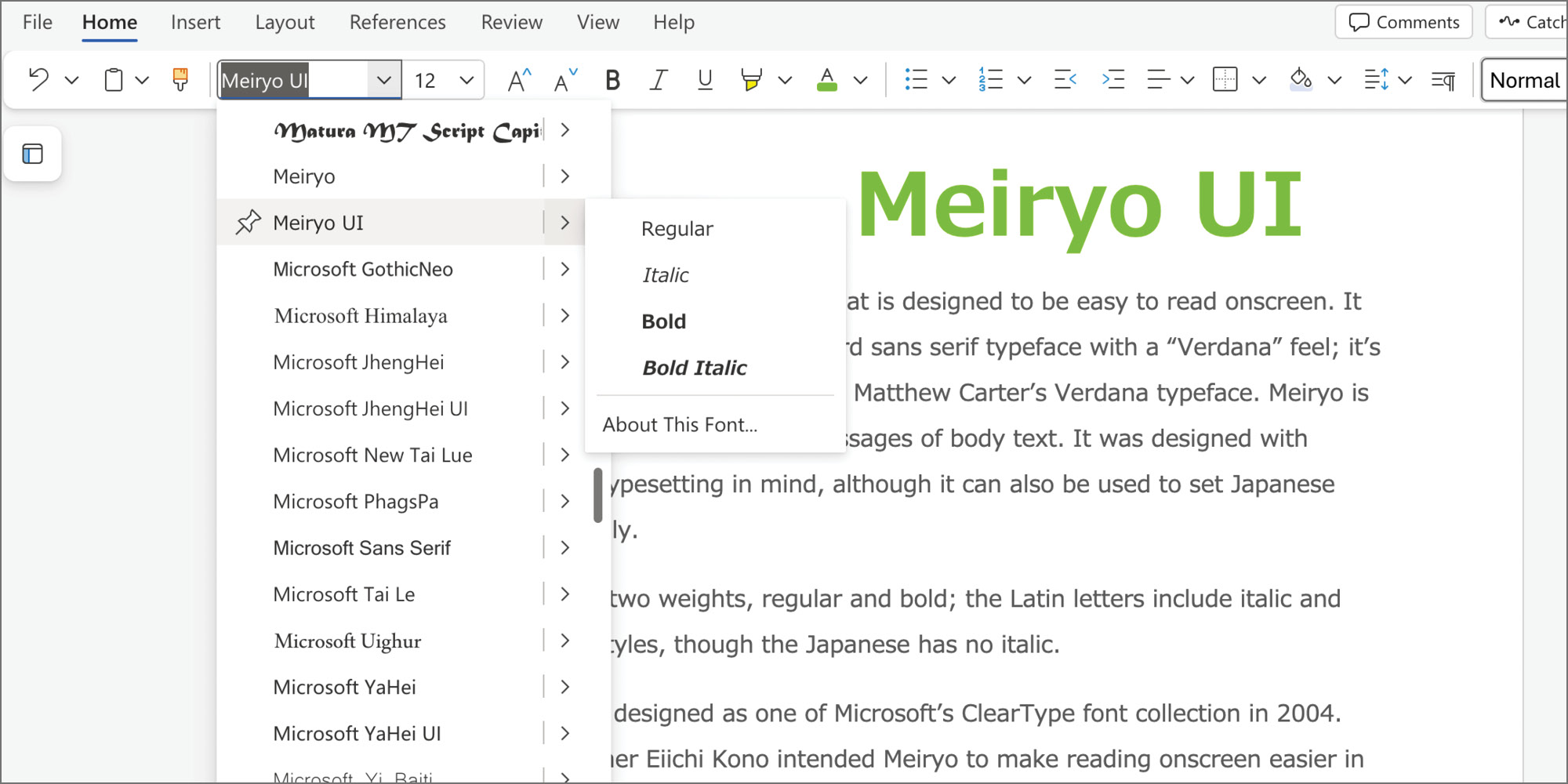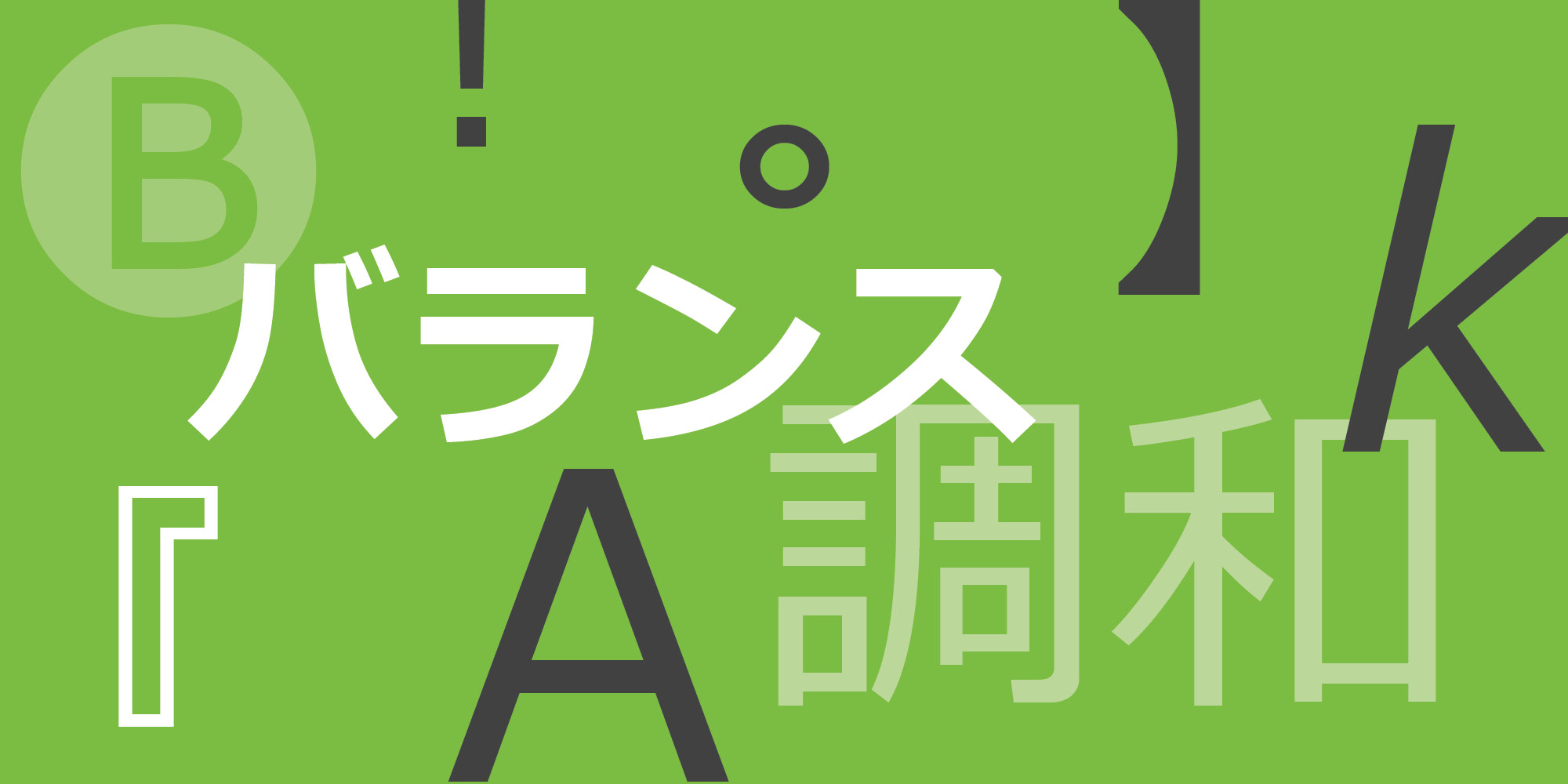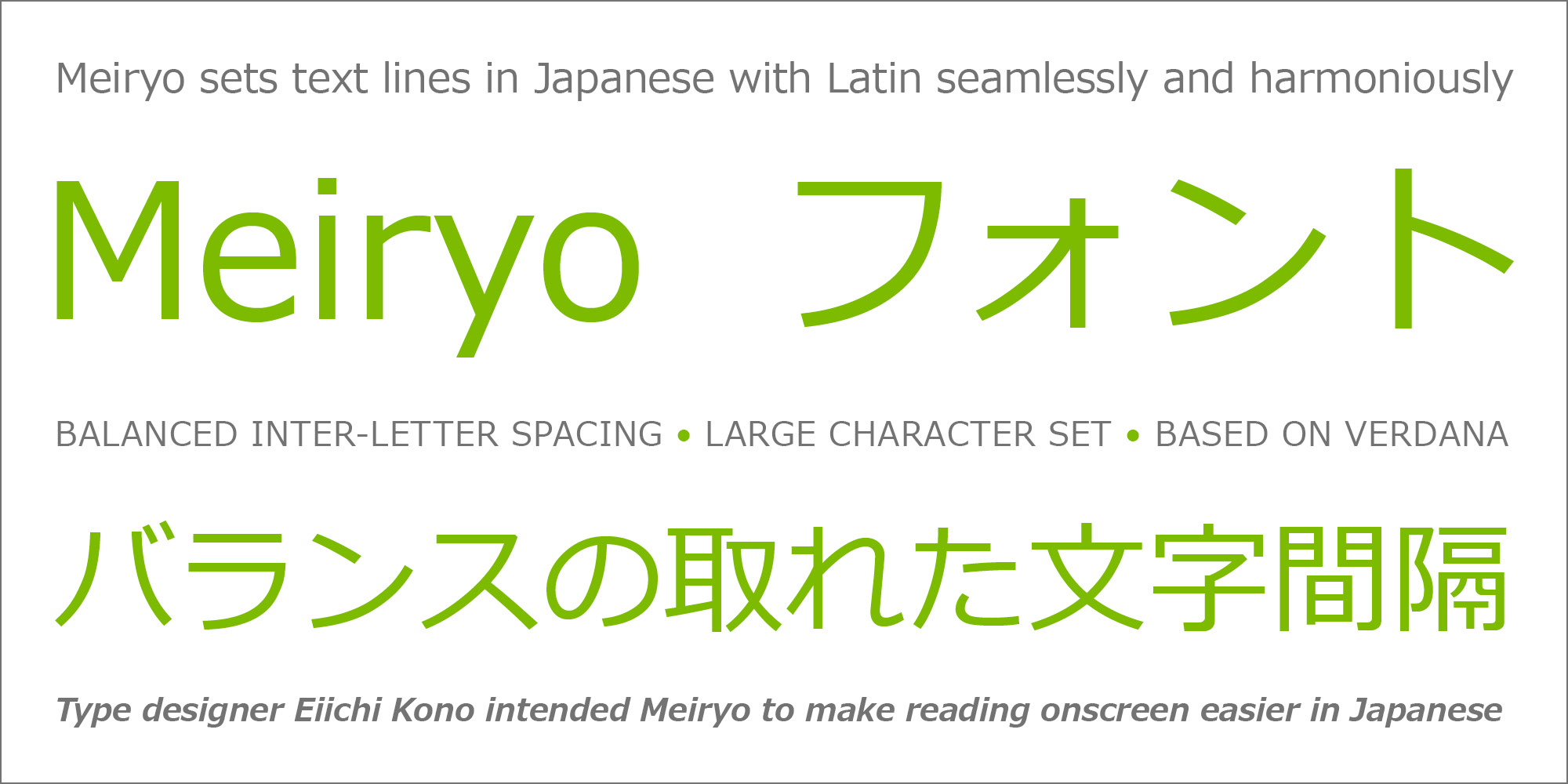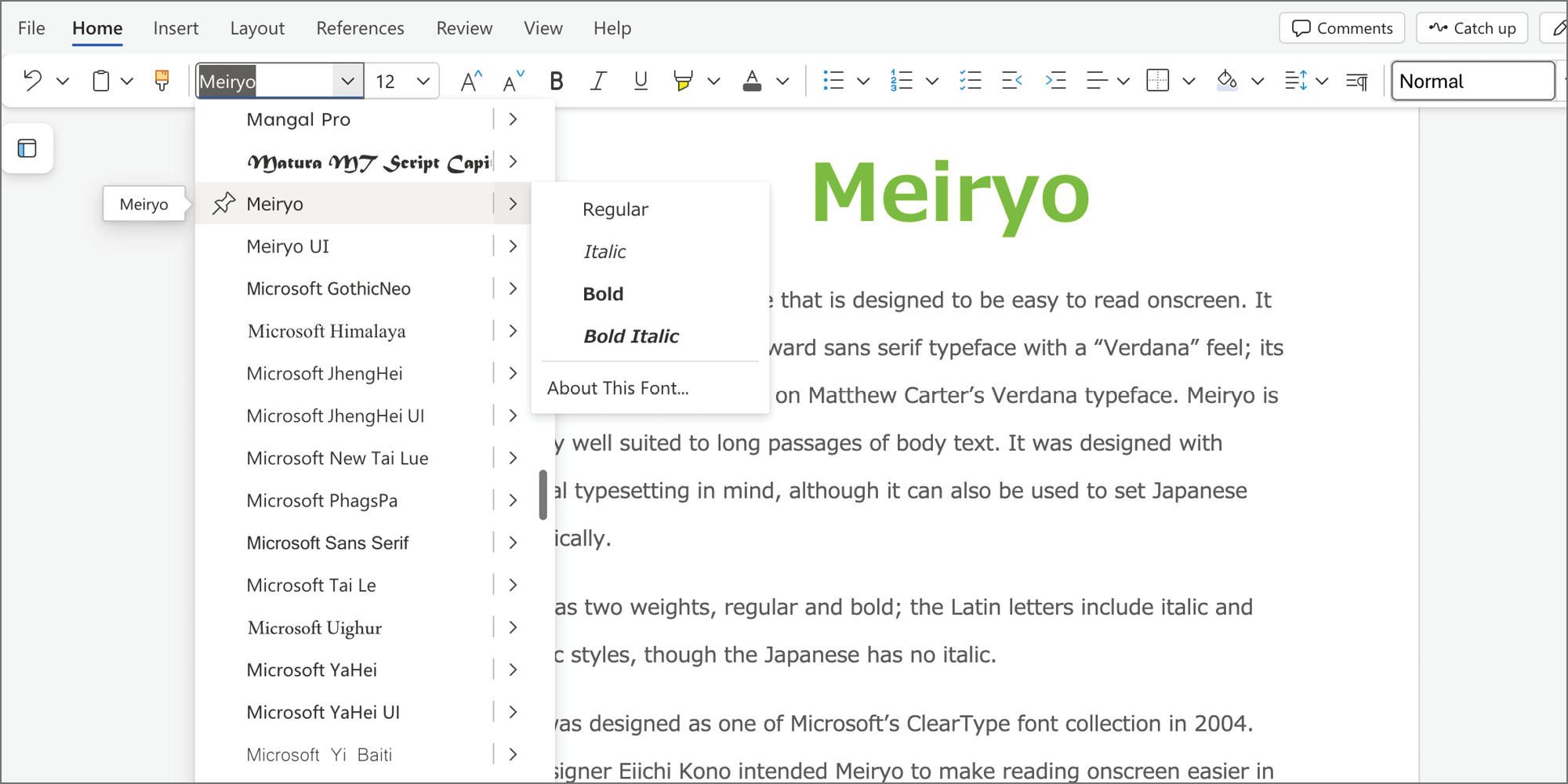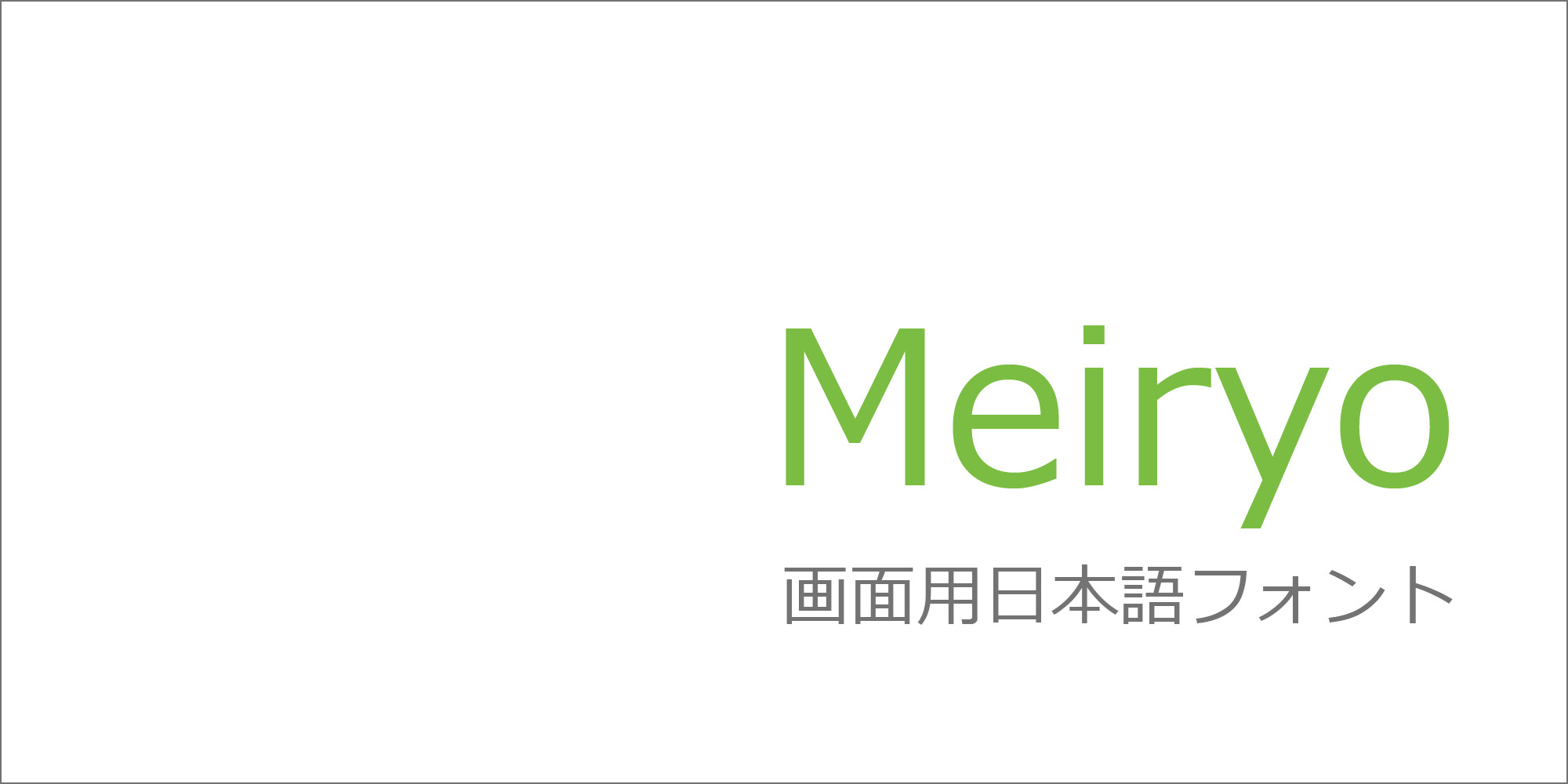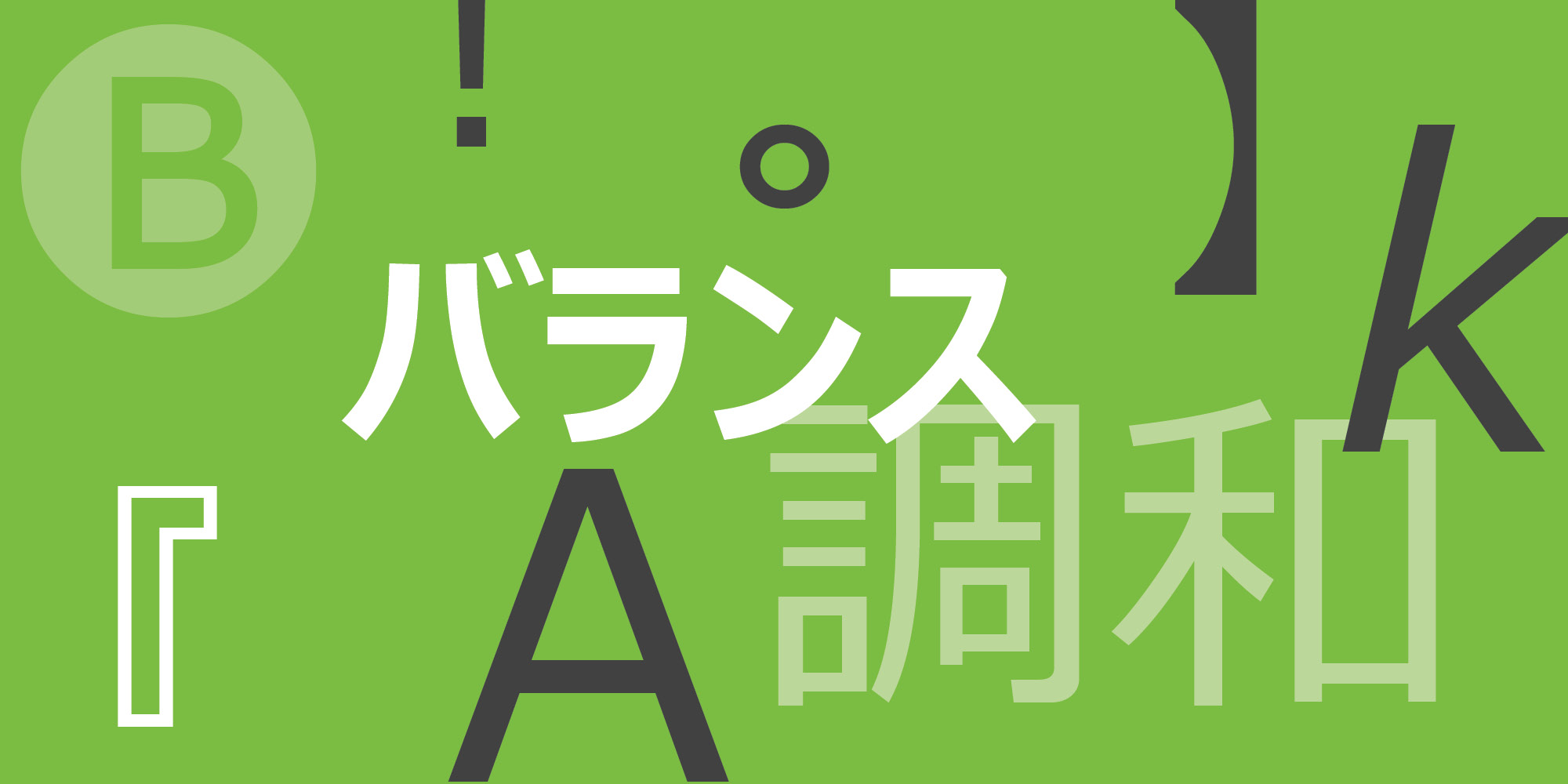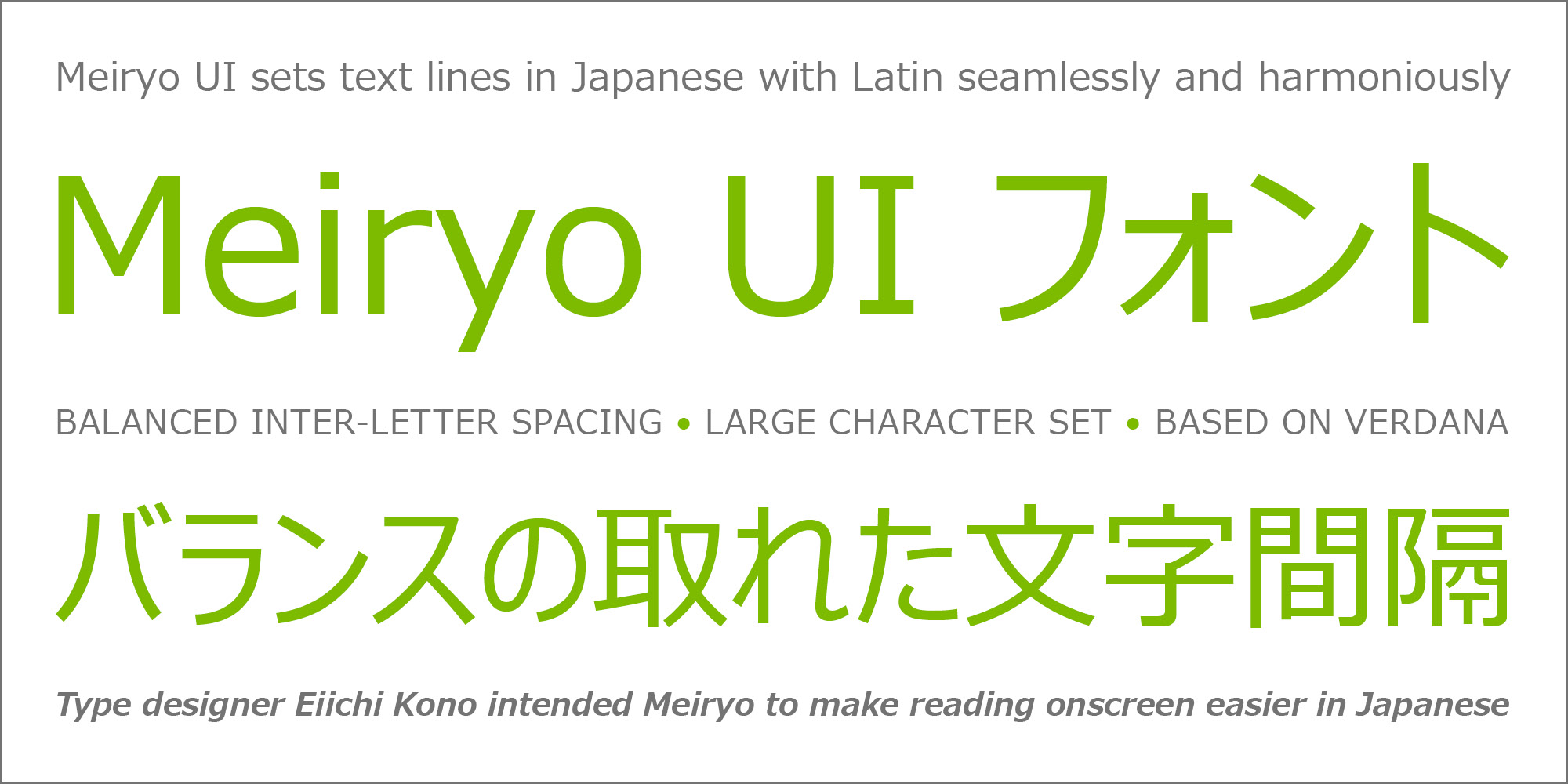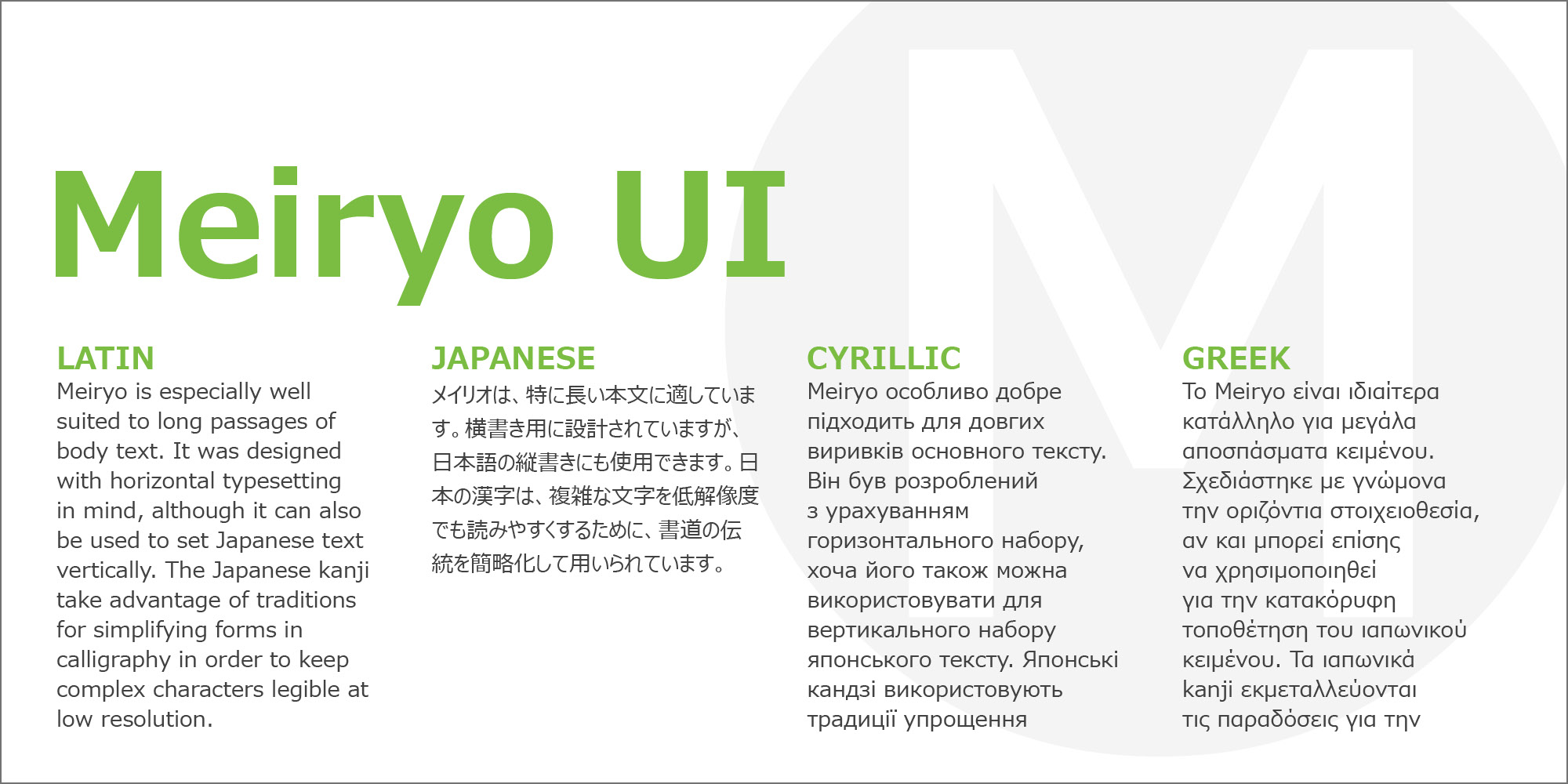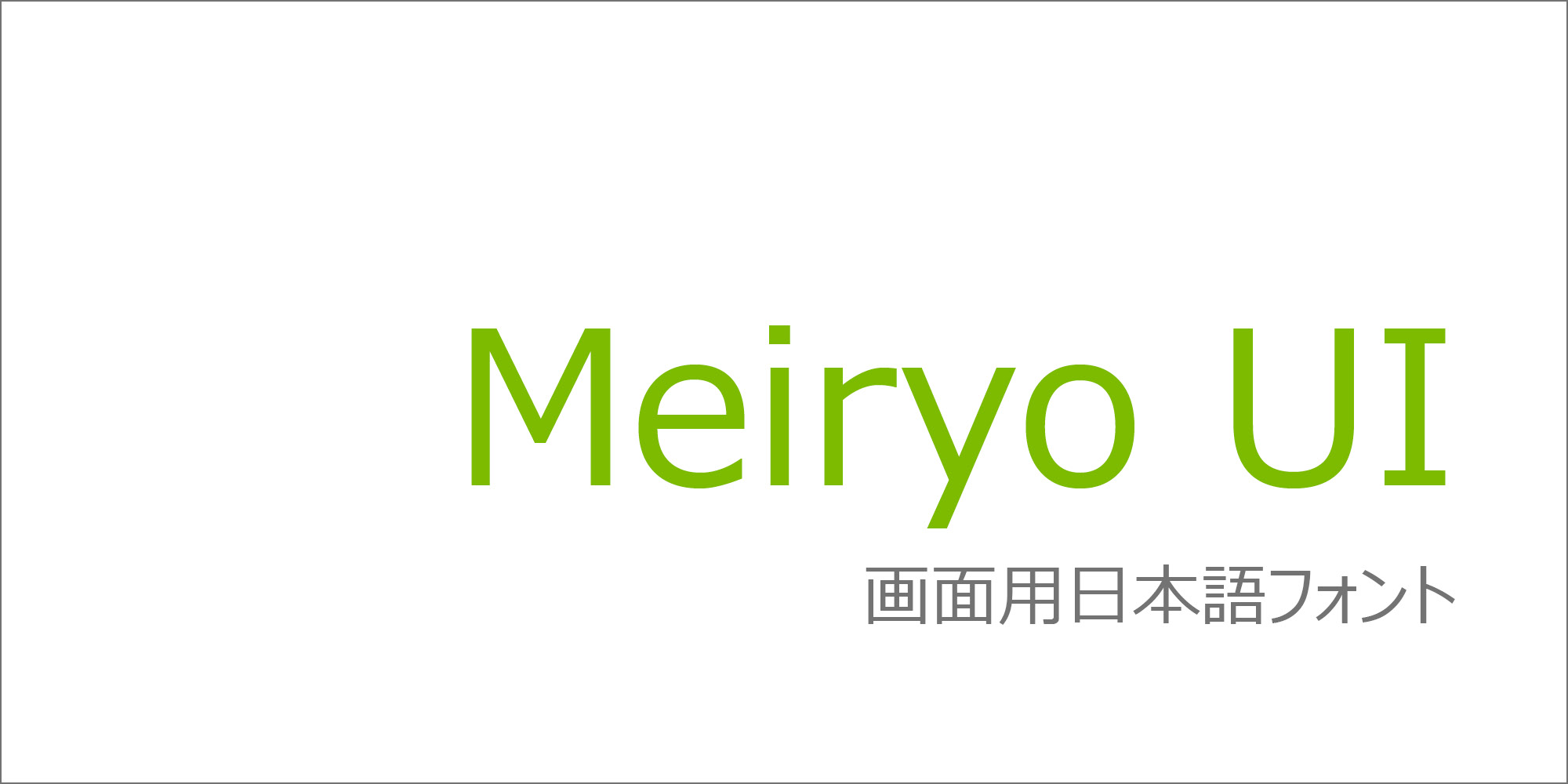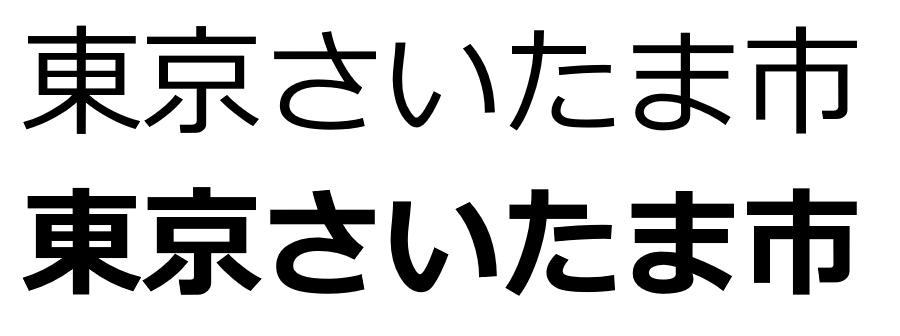
Meiryo is a very versatile modern sans serif type designed to give an exceptionally clean appearance on screen, as well as in print. It is optimized for on-screen reading. The letterforms are generously open and well-proportioned; legible and clear at smaller sizes, and dynamic at larger display sizes. The beauty of this face is that it sets text lines in Japanese with Roman seamlessly and harmoniously. The balanced inter-letter spacing enhances horizontal alignment, facilitating smooth reading flow. Meiryo has a very large character set with Japanese and Roman combined, fully scalable outline technology, making it extremely functional for all aspects of communication and publishing. It is a robust legible typeface yet compact enough to enable tight inter-line spacing which is good for space economy.
| Designers | C&G Inc.; Eiichi Kono; Matthew Carter |
Meiryo & Meiryo UI